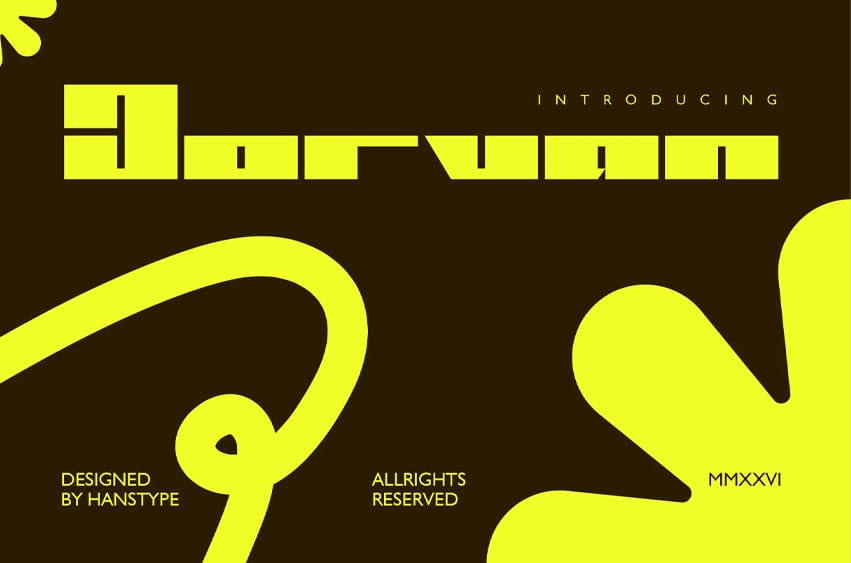
Jorvan Font is a powerful bold typeface that blends modern precision with a distinctive edge.
Its sharp geometry and balanced proportions make it perfect for brands that want to stand out with confidence and style